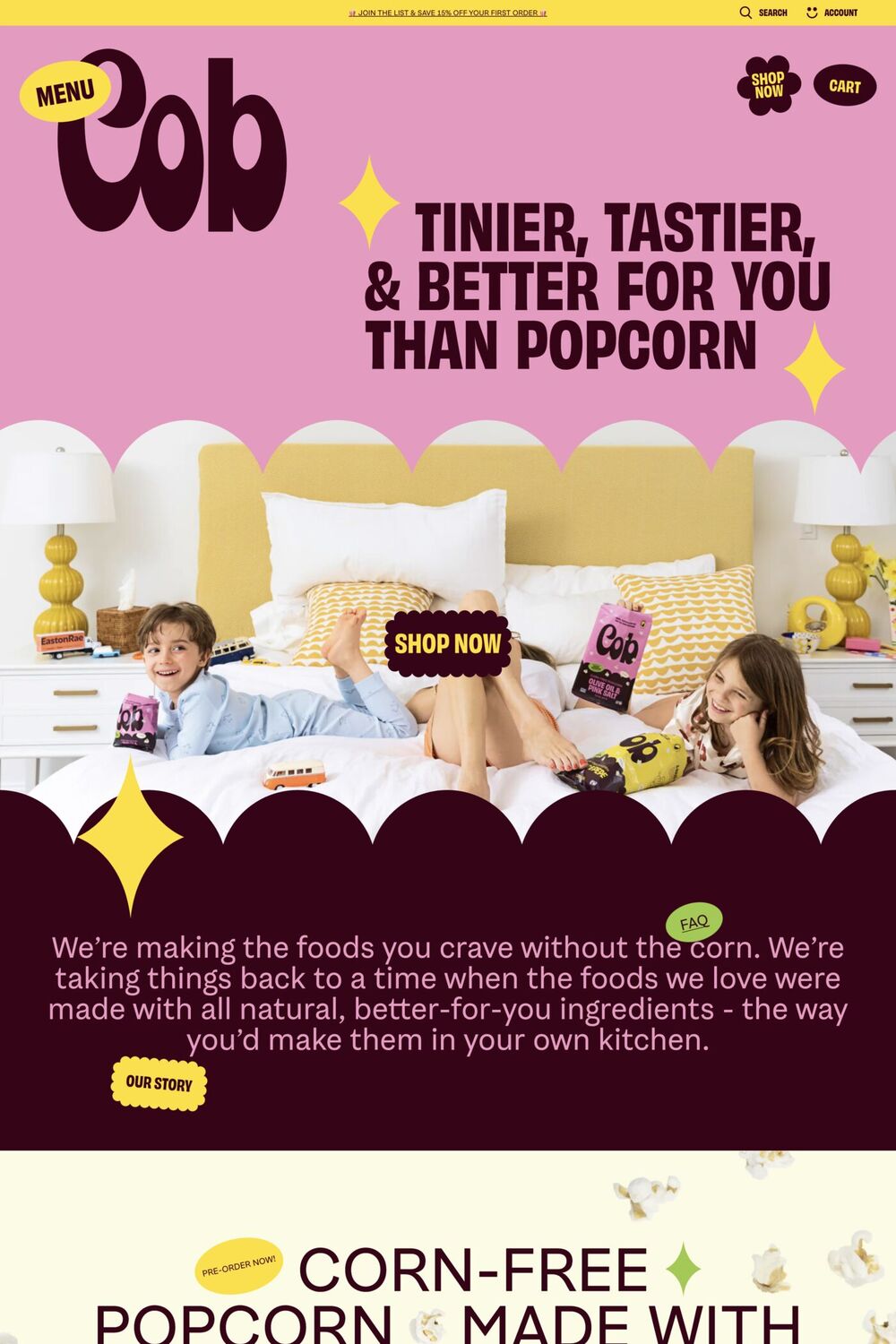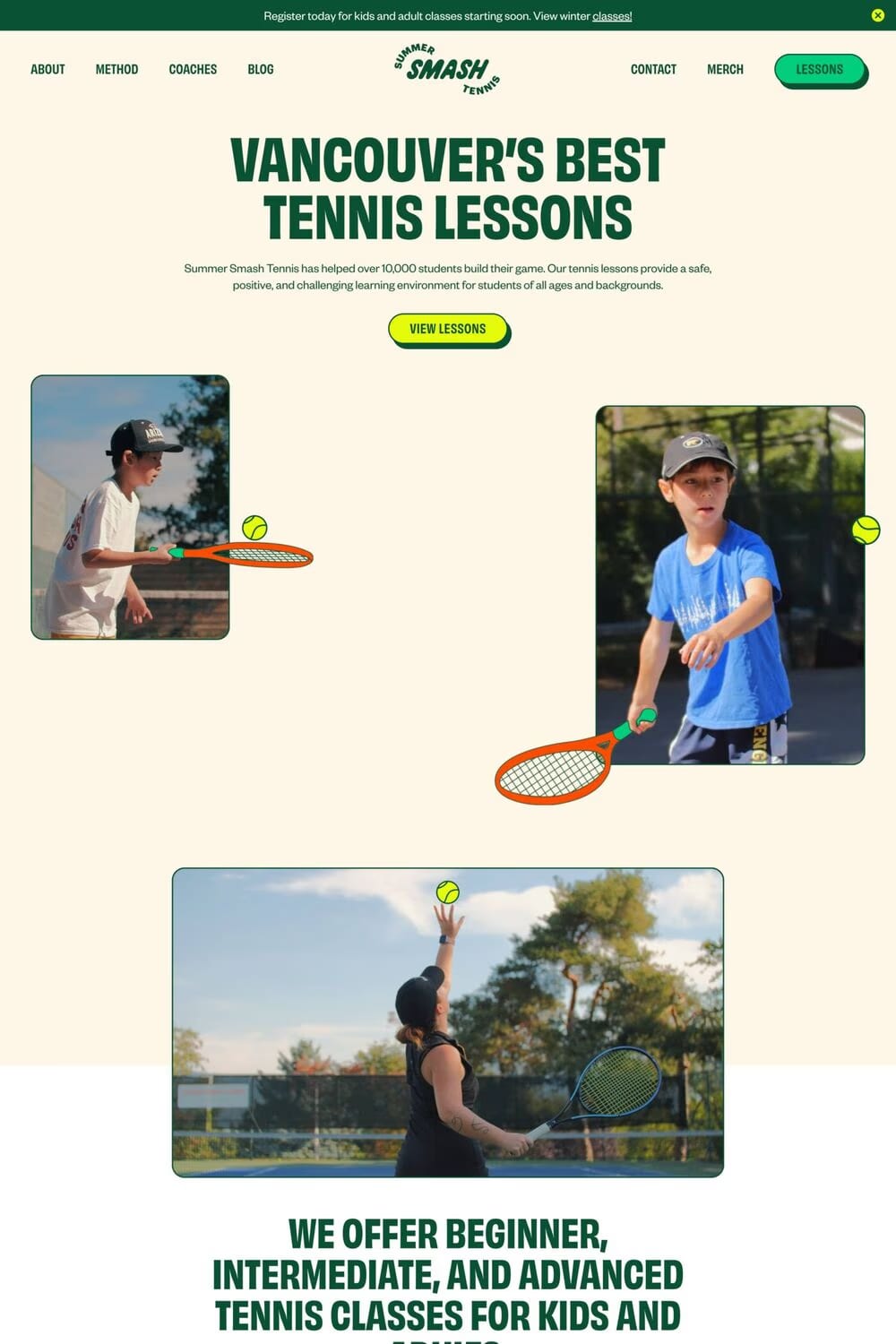
Obviously is a sans-serif typeface from OH no Type Co.
As a lover of hand-painted signage, I have a dark side I rarely mention: I have a soft spot for vinyl too. I love to see Impact made extremely wide, and Antique Olive Nord squished to comical proportions. I love when the vinyl starts peeling up on the sides, and the corners are the only bits that manage to remain adhered to the substrate. I love the billboards for HEMPCON, TATTOOCON, and all the other CONS that advertise with black on an obnoxious shade of pink or neon green. With all those things in mind, I set out to make Obviously. There are 96 styles for all sorts of feelings. Use it for the nail salon, the laundromat, and the mechanic. Subtlety is for the birds. Let’s communicate OBVIOUSLY.